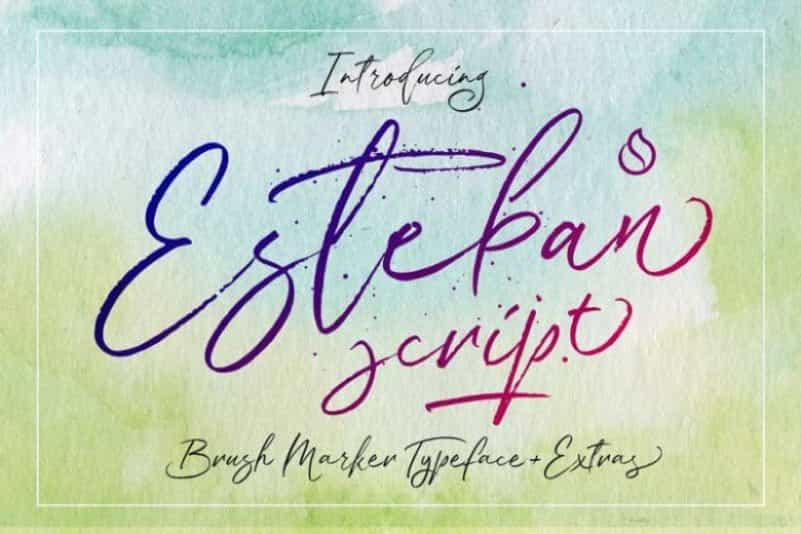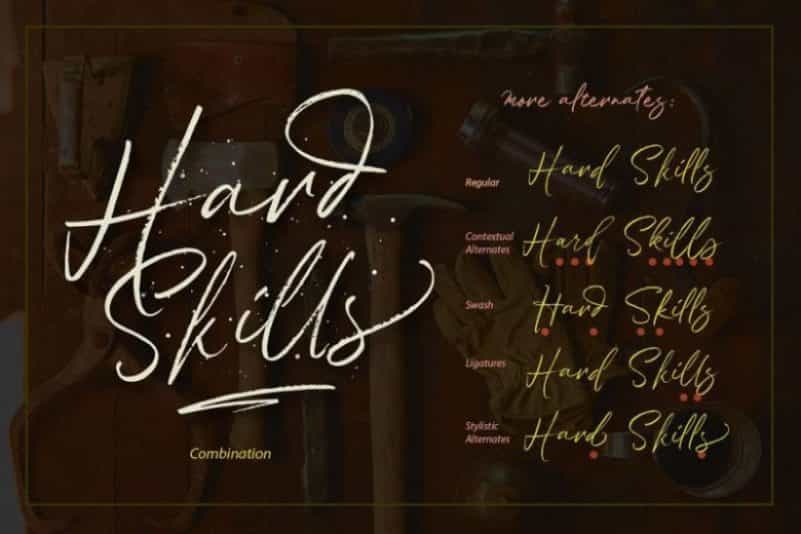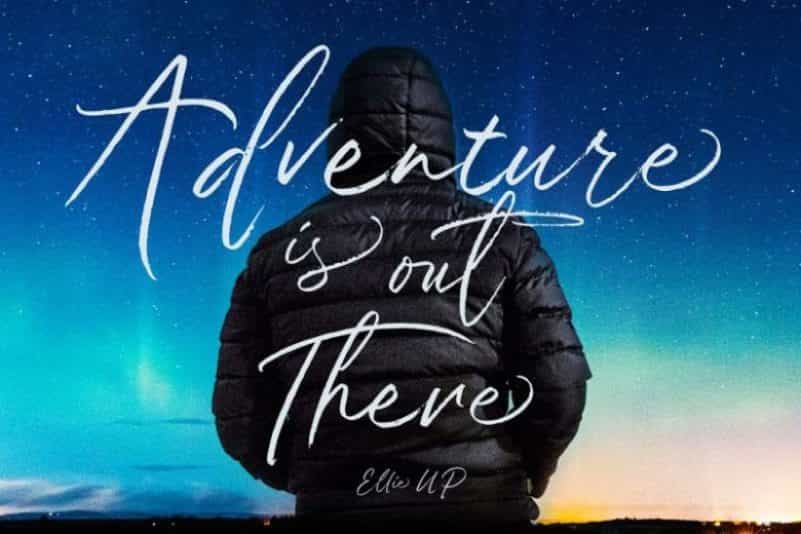
Discover Esteban Script Font, part of the Commercial Brush Handwritten collection—a versatile and unique font perfect for adding a personal touch to your projects. Download it for free and enjoy crafting designs with style, from invitations to social media posts. This font is available exclusively for personal use, giving you the freedom to create without limits. Unlock your creativity with Esteban Script Font today!
Esteban Script A new fresh & modern script with a calligraphy style, a dancing baseline! Brush calligraphy typeface using dry marker with fast and natural line strokes that allowed for the perfect marriage of both feminine and masculine. Especially, catalogue product, advertising project, branding, home ware designs, blog logo, header promotions, product packaging, wedding, quote, poster design and more.